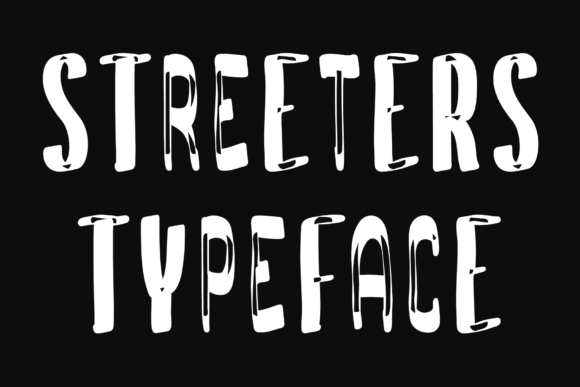
Step into the realm of visual enchantment with Streeters Font, the ultimate calligraphy masterpiece, meticulously handcrafted for those who dare to make a statement. Experience the magic of a hand-painted brush, where liquid paint dances across the canvas, leaving a trail of elegance and allure. Dive into a world where uppercase and lowercase characters intertwine harmoniously, creating an infinite tapestry of captivating possibilities. Unleash your creativity and mix and match characters to weave a visual symphony that dances upon the page.
With Streeters Font, your words become art, each letter a brushstroke of pure artistry. It's the perfect companion for your most ambitious projects, demanding attention and igniting imaginations. Whether you're crafting posters, designing logos, or embarking on web design adventures, Streeters Font stands as your steadfast ally, transforming your vision into a reality.
Feel the rush of adrenaline as you witness the vibrant energy of Streeters Font command attention, leaving an indelible mark on the hearts and minds of your audience. This font is not merely a tool; it's an artistic expression, a reflection of your unique style and vision. Embrace the unconventional, embrace the bold, and let Streeters Font guide you towards design greatness.
Within the realm of fonts, Streeters Font reigns supreme, a beacon of creativity and inspiration. It's the font that shatters boundaries, pushes limits, and invites you to explore the unexplored. With Streeters Font, every project becomes a masterpiece, a testament to your unwavering commitment to originality.
Join the ranks of creative visionaries who have harnessed the power of Streeters Font to elevate their designs to new heights. Let your imagination soar as you create stunning posters that captivate audiences, logos that leave a lasting impression, and web designs that redefine the boundaries of digital art. With Streeters Font, the possibilities are boundless, the potential limitless.